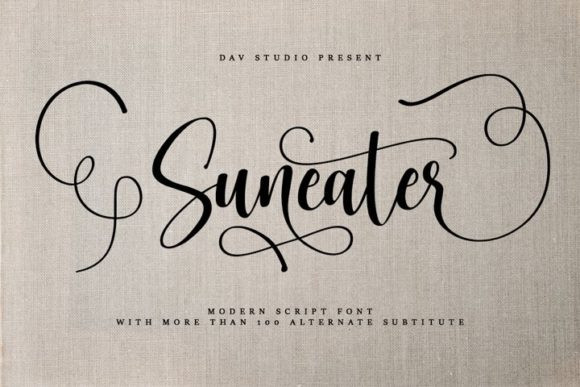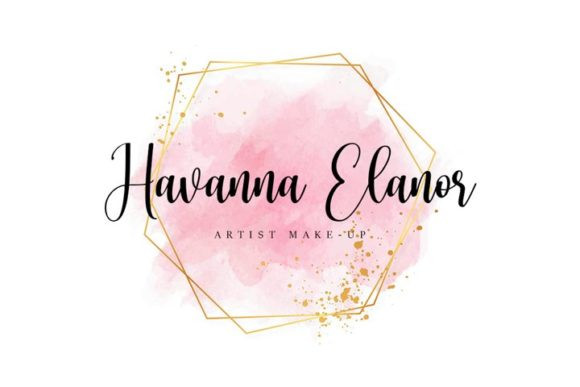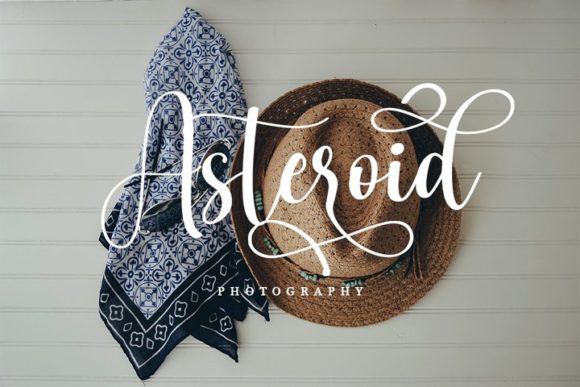
Suneater Font
Suneater FontSuneater is a sweet and soft handwritten font with an authentic feel. It’s perfect for making gorgeous wedding invitations, lovely stationery art, great social media posts, and cute greeting cards.